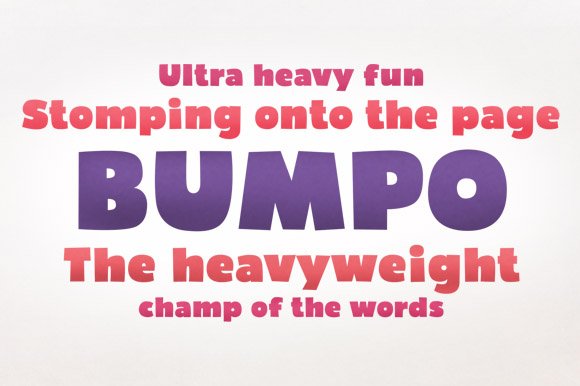
The Birth of a Bold Typography: Bumpo Font
Who hasn’t felt the excitement of creating something new and fun? Perhaps it was designing a birthday party invitation for your little one, or crafting a playful logo for a kids’ brand. Whatever the spark, it’s moments like these that remind us of the importance of typography in making our message shine. And for those looking to bring a burst of energy to their designs, the Bumpo Font is here to help.
With its oversized, chunky style and friendly personality, the Bumpo Font is perfect for grabbing attention and conveying a sense of fun. Whether you’re working on children’s products or creating eye-catching posters, this extra-heavy font is sure to deliver. As a designer, you’ll appreciate the value of Bumpo Font in adding a playful touch to your projects, making it an essential tool in your typography arsenal.
Bumpo Font Key Features
- Character Set: The font includes a comprehensive character set, covering Latin, Cyrillic, and Greek alphabets, as well as various symbols and punctuation marks.
- Unique Characteristics: The font’s distinctive, playful design features rounded shapes and organic lines, making it ideal for use in children’s books, magazines, and other publications targeting a younger audience.
- Font Styles: Bumpo Font includes a range of font styles, including regular, italic, bold, and bold italic, allowing users to customize their text with varying levels of emphasis.
Bumpo Font Review
Overall, I think Bumpo Font has some great qualities that make it suitable for certain projects. Here’s what I like:
- ✨ Unique style: Bumpo Font has a distinct, playful feel that can add a touch of whimsy to your designs.
- ✨ Versatile: It comes in multiple weights and styles, making it easy to use in a variety of contexts.
- ✨ Readable: Despite its quirky design, Bumpo Font is surprisingly easy to read, even at smaller font sizes.
- ⚠️ Limited language support: Bumpo Font may not include all the languages you need, which can be a problem for multilingual projects.
- ⚠️ Not ideal for body text: While Bumpo Font works well for headings and titles, it may not be the best choice for large blocks of body text.
- ⚠️ May not be suitable for formal projects: Bumpo Font’s playful style may not be suitable for formal or professional projects.
Overall, I think Bumpo Font is a solid choice for projects that need a unique and playful touch. Just be aware of its limitations and use it judiciously.
Bumpo Font Practical Application Guide
The Bumpo Font is a unique and playful typeface perfect for adding a touch of whimsy to your designs. To use it, follow these steps:
Tips for Getting the Most Out of Bumpo Font
To get the most out of the Bumpo Font, experiment with different font sizes, colors, and combinations. Use it to create eye-catching headlines, add visual interest to text blocks, or create custom graphics.
Pair the Bumpo Font with bold, sans-serif fonts for a striking contrast, or use it with other playful fonts for a cohesive look.
The Bumpo Font is perfect for:
Children’s books and educational materials
Party invitations and event branding
Playful advertising and marketing campaigns
Graphic design projects that require a whimsical touch